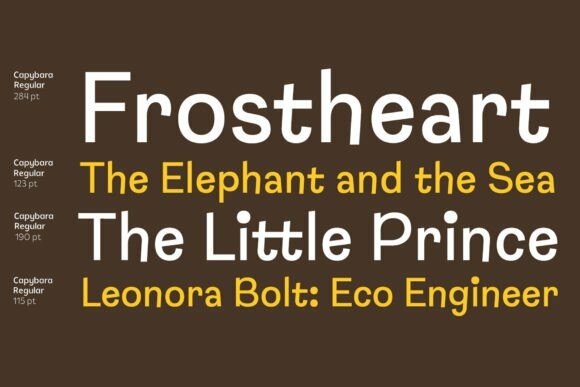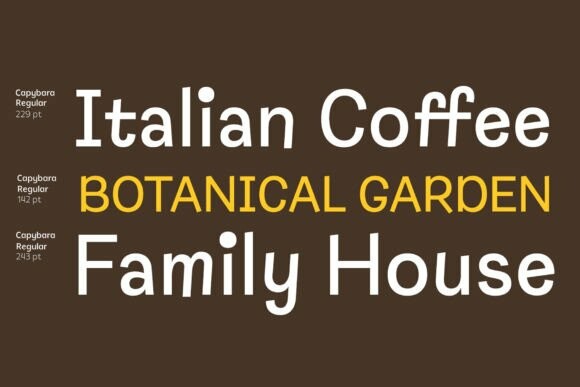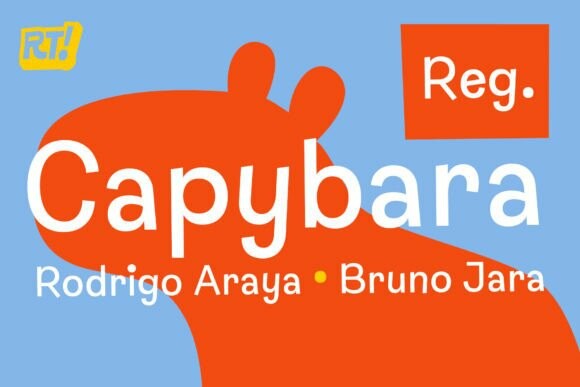
Capybara Font
Designer: Rodrigo Typo
Capybara Font is a fun and playful typeface ideal for youth and children’s titles and logos. It includes the Cyrillic alphabet, alternative characters, and special ligatures, making it versatile and creative. Perfect for adding a lively touch to any project!